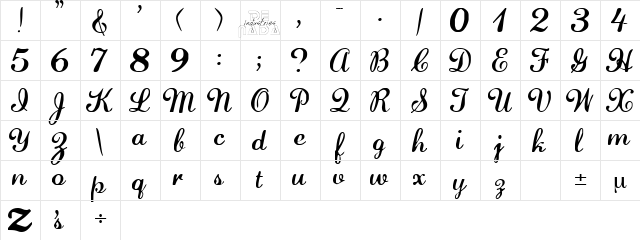
LaurenScript Regular
Design Context for LaurenScript Typeface
LaurenScript flows with the natural rhythm of handwritten lettering, making it ideal for designs that call for warmth and personal expression.
Font Pairing: Combine LaurenScript with a simple geometric sans for maximum contrast — the tension between flowing curves and clean structure is a classic typographic pairing.
Pro Tip: Use LaurenScript for short runs of text — names, titles, or taglines. Extended body copy in script faces tires the eye quickly.